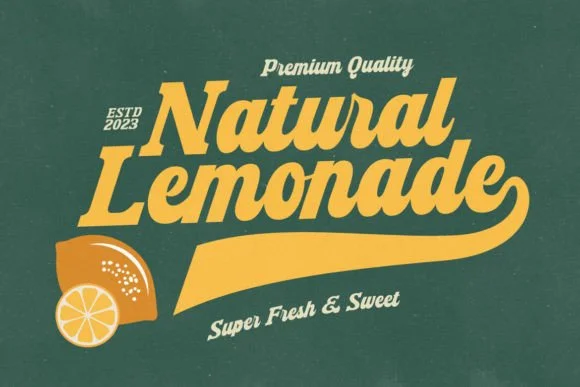
Machton Font is a Varsity/Jersey textual style. Raise your plan undertakings higher than ever with our exceptional advanced text styles customized for Canva and Cricut clients.